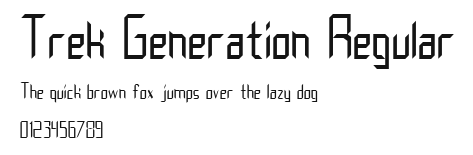
Trek Generation Regular Preview
• Font Name: Trek Generation Regular
• Full Font Name: Trek Generation 2
About Trek Generation Regular.ttf
Trek Generation Regular.ttf is a modern, elegant sans-serif font designed for ultimate readability and visual harmony. Perfect for branding, headlines, web design, and print materials.